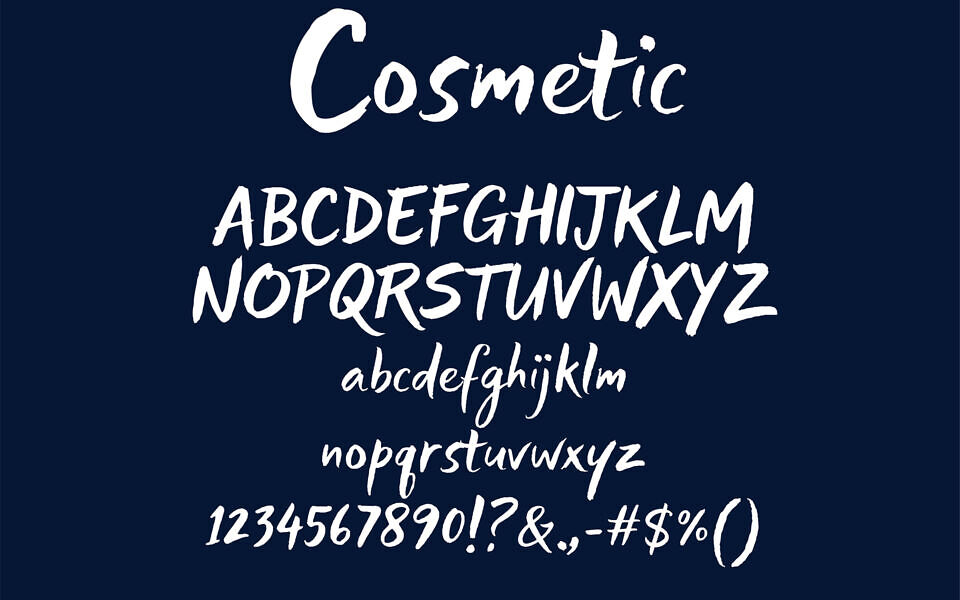
The “LT Cosmetic” font by LyonsType is a free bold, hand-drawn typeface with a brush-like aesthetic, blending elegance and creativity.
Its fluid, uneven strokes and smooth curves give it a crafted charm, ideal for beauty, fashion, and lifestyle branding. Featuring uppercase, lowercase, numbers, and symbols—highlighted by a unique “T” and star emblem—it offers versatility for headlines, logos, and social media.
The font’s organic feel and polished design reflect a modern trend of authentic typography, making it perfect for designers seeking personality and warmth in their projects.